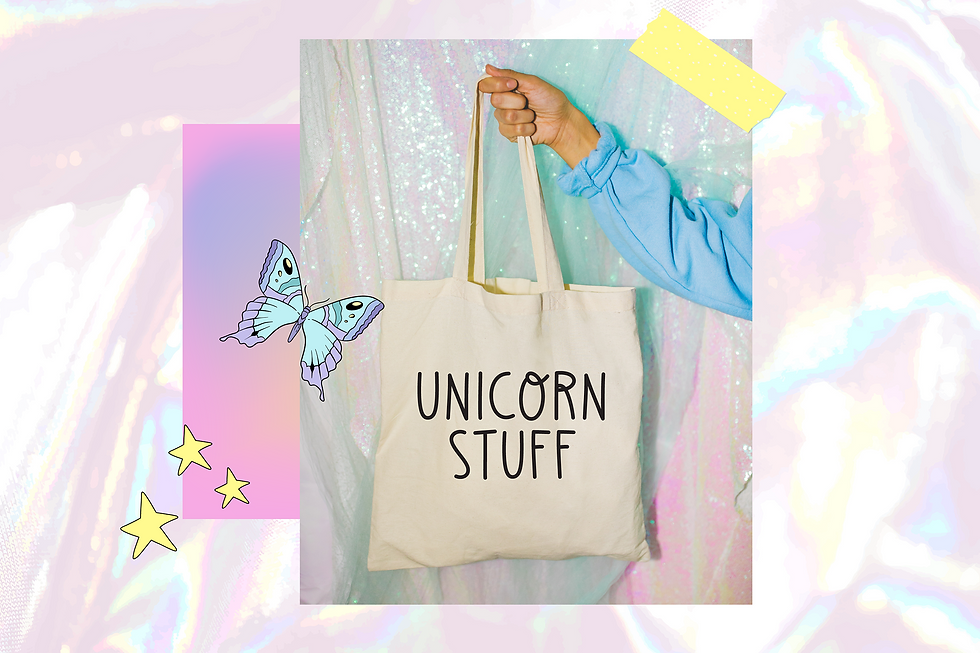
SUNDAY GIRL
SUNDAY GIRL is a simple but cool tall font.
This font is perfect for creating unique products, prints and quotes, social media in an easy way and many more!
I create this font two years ago (can you believe it?) It was one of my first designs and I called “power moonday” but for some reason I wasn’t happy with it! Until now that I decided to make an update to correct/change some letters (most of them hehe!) and details. Also, I added and removed unnecessary things, so I hope you like the result as much as I do. 😉
Use the 2 symbols included to make cute compositions.
• Period centered symbol · – Star 1 (shine)
• Bullet symbol • – Star 2
This font only includes 1 different lowercase character than the uppercase characters; the character is  the letter o.